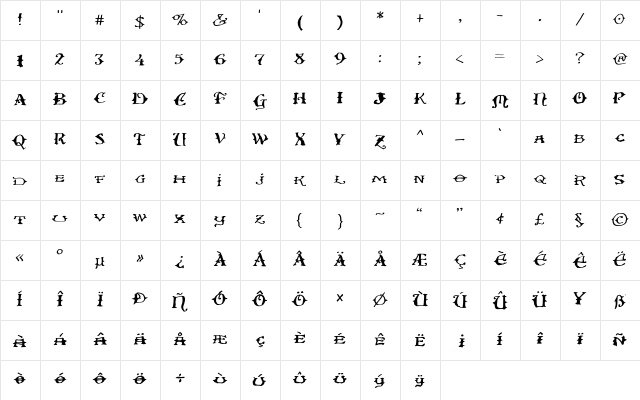
Ol' Wes' Rustik for Mac Medium
Design Context for Ol' Wes' Rustik for Mac Typeface
Ol' Wes' Rustik for Mac is a composed and adaptable typeface that performs quietly and consistently across a wide range of design contexts.